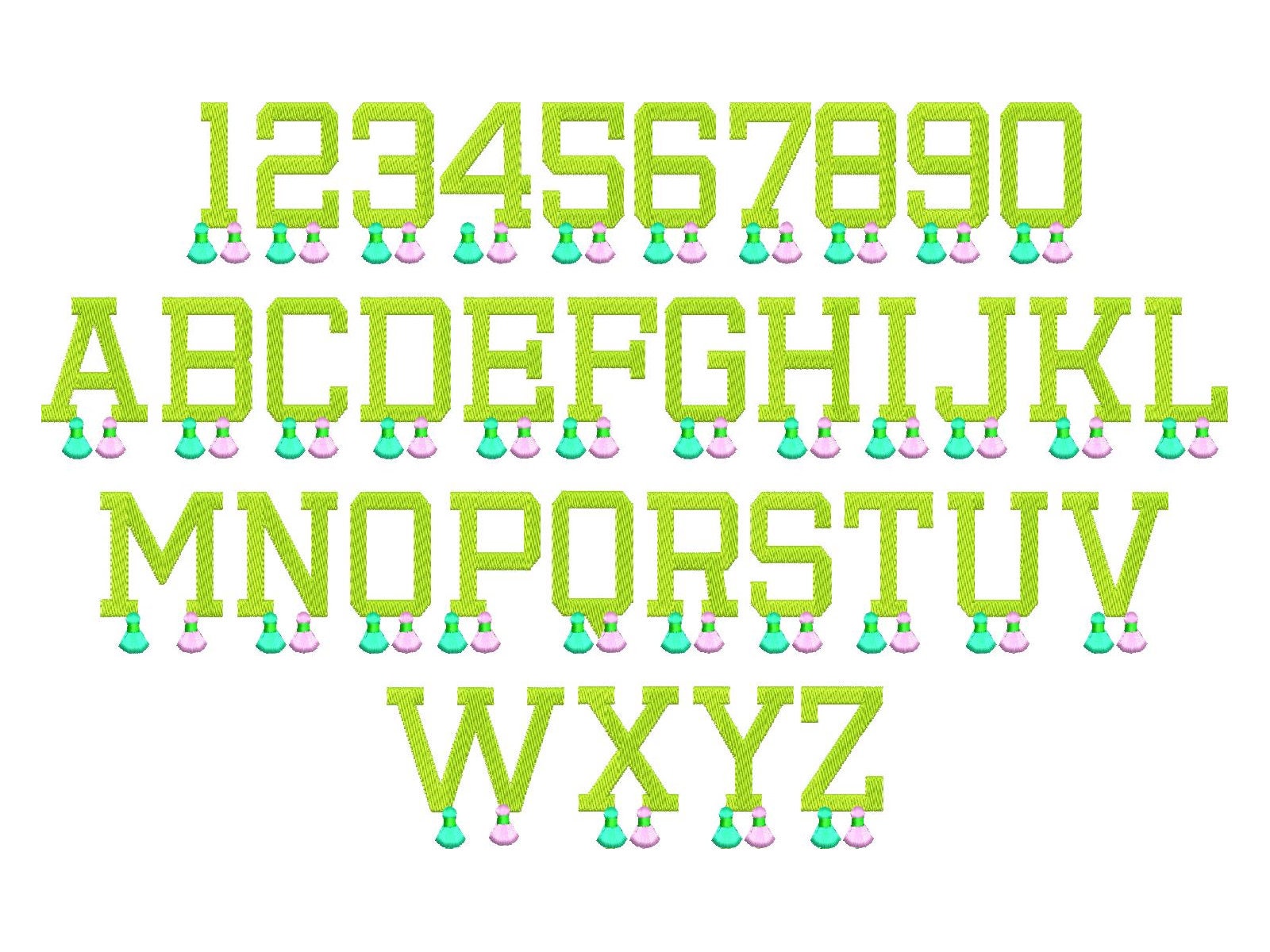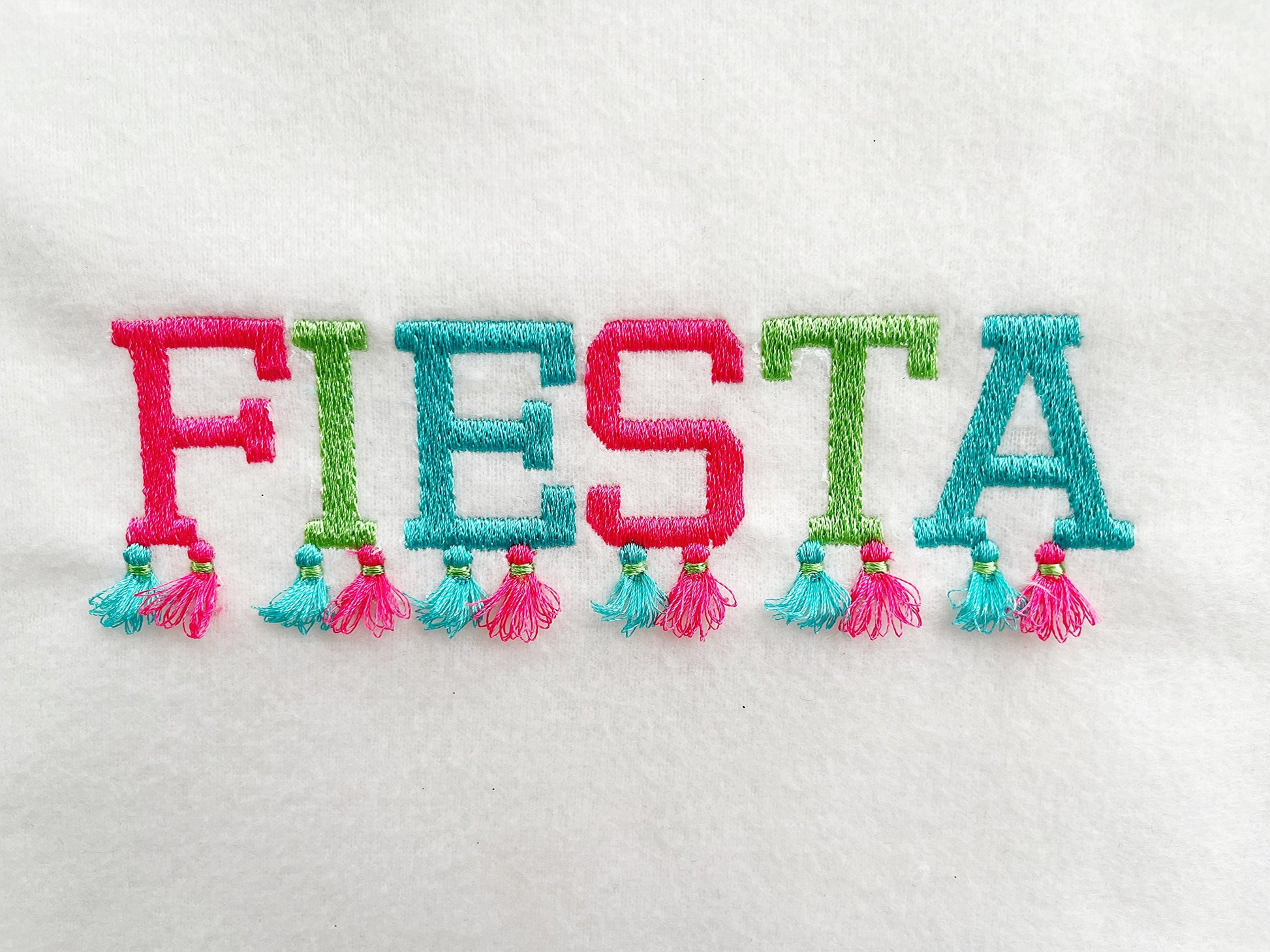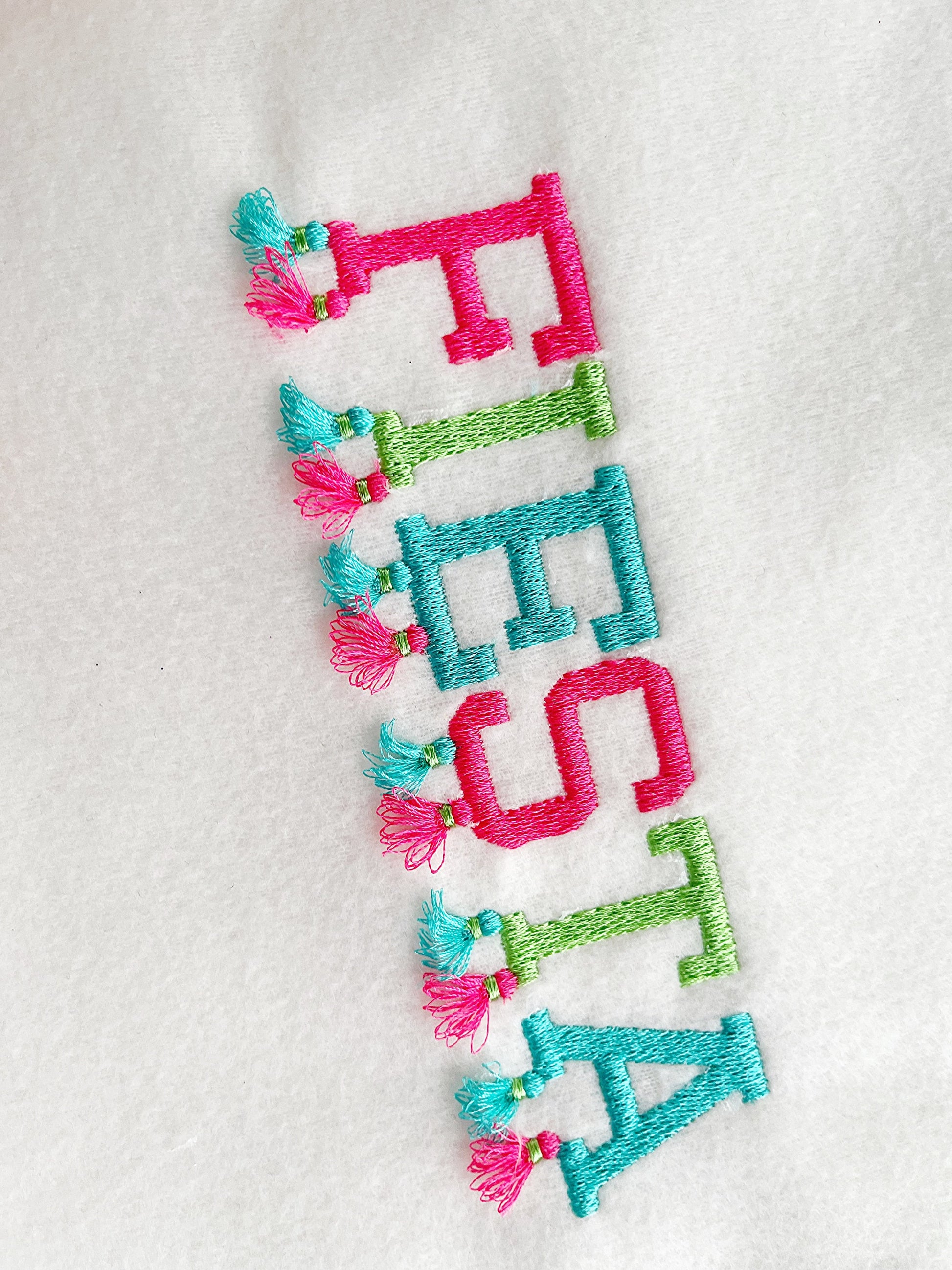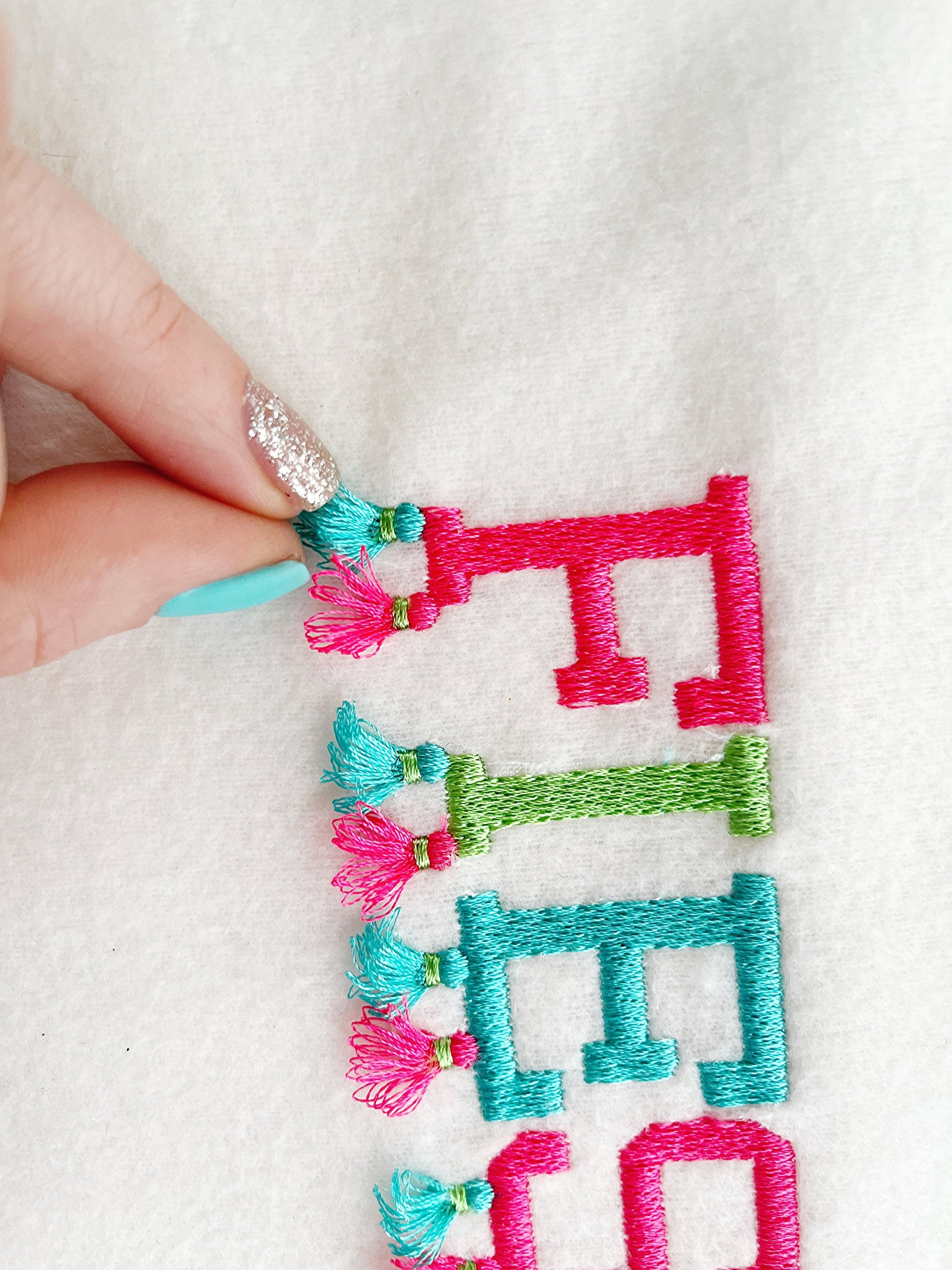
Or click to open the linkA fluffy fringed summer font with tassels, for girly names and monograms on shirts, beach bags and pillows.
A special seam holds the fringe in place. Uppercase A to Z and numbers 0 to 9 in six sizes: 1.5, 1.8, 2.1, 2.2, 2.6 and 3 inches.